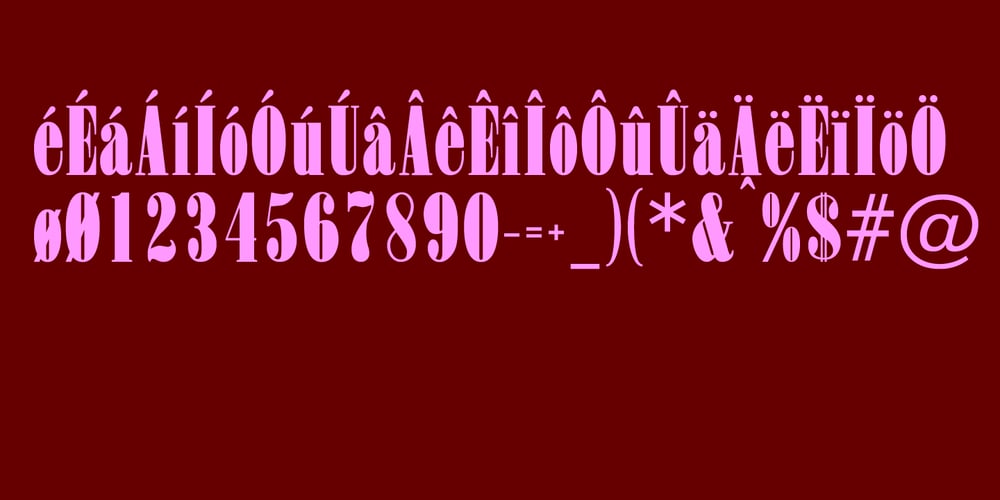
Penny Font Family was designed by Jordan Davies, George Nesbitt and published by Wooden Type Fonts. Penny contains 1 styles and family package options. A revival of one of the popular serif wooden type fonts of the 19th century, tall x height, quite short descenders, thin, rounded serifs, thick stems, based on Roman styles, deliberate, accurate rendering of the original.